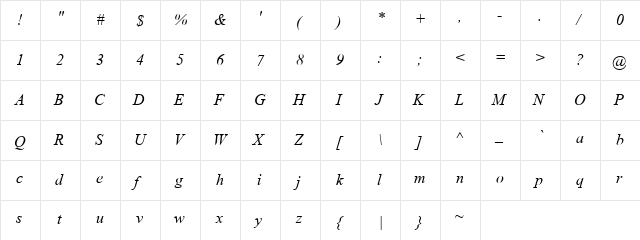
Angsana New Italic
Design Context for Angsana New Typeface
Angsana New offers clean, dependable letterforms without strong stylistic allegiance, making it a practical choice for designers who need flexibility. The slanted form adds forward momentum and visual energy.
Pro Tip: Try Angsana New for annotation and caption copy alongside an upright companion — the contrast in angle creates a dynamic but ordered typographic system.